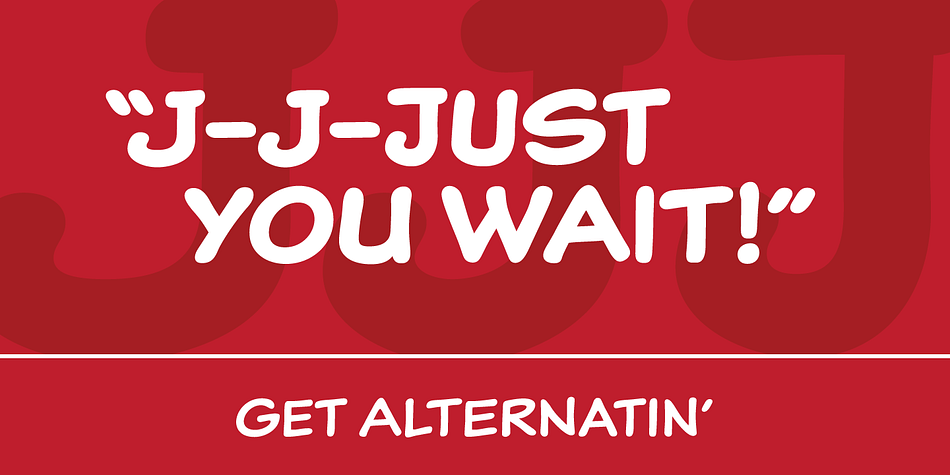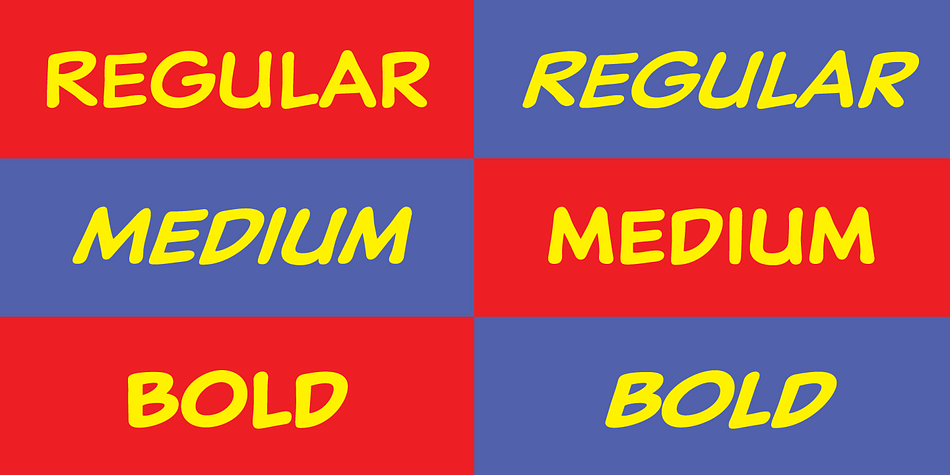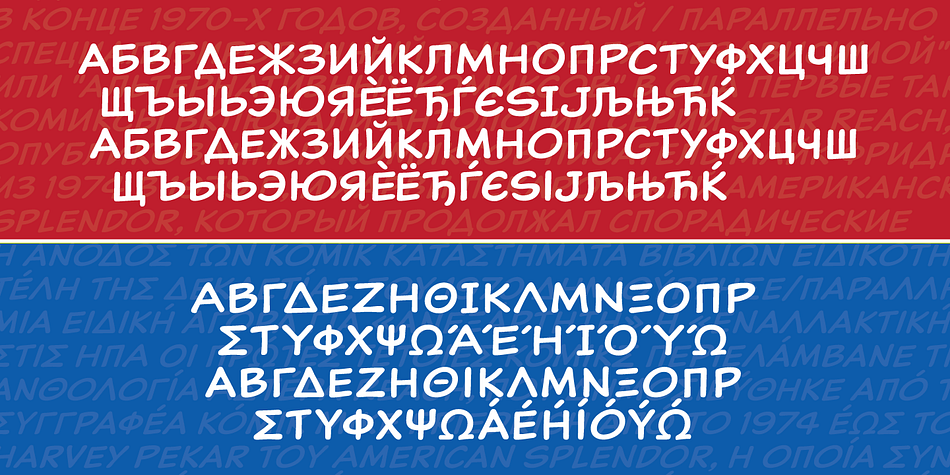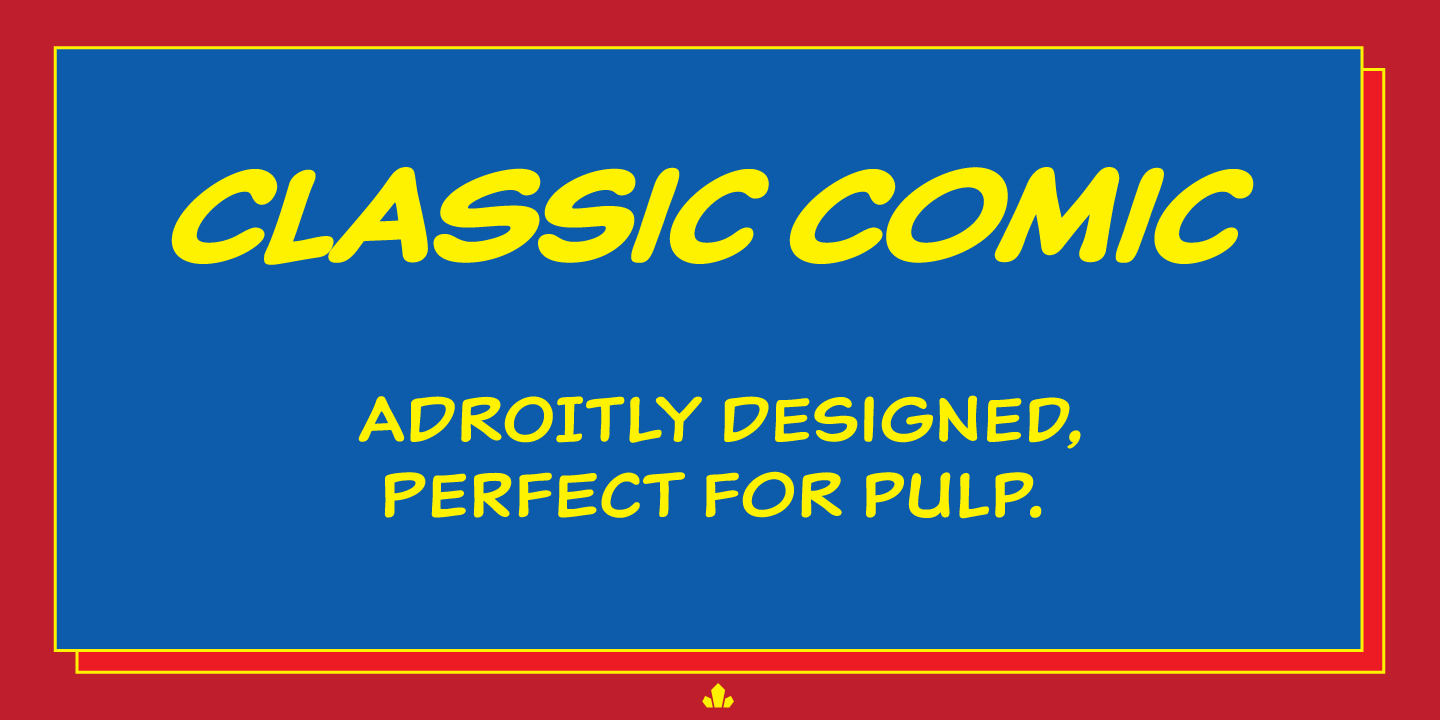
Designed by Patrick Griffin, Classic Comic is a comic font family. This typeface has six styles and was published by Canada Type.
Classic Comic is the fourth family of Canada Type’s long-running series of comic book fonts. It feels right at home alongside Collector Comic, Captain Comic and Caper Comic.
Rather than following a particular model, Classic Comic’s forms are constructed with the natural tilt and wider aperture of the slightly darker lettering found in older comics on either side of the Atlantic. Two very interchangeable sets of caps are available in regular, medium and bold weights, with italic counterparts, all in one style-linked and affordable package.
Classic Comic comes in all popular formats, and contains extended language support covering most Latin languages, as well as Cyrillic and Greek.